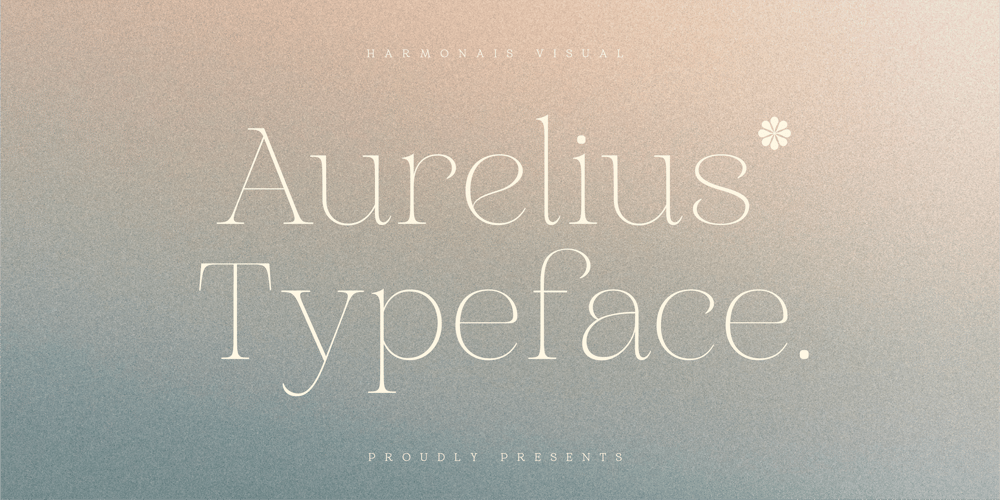
HV Aurelius Font Family was designed by Max Duy T. and published by Harmonais Visual. HV Aurelius contains 2 styles and family package options. Aurelius – a sophisticated, charming serif with a fashionable touch. Specially designed for luxury, elegant, feminine projects, Aurelius is perfectly suitable for creating modern, chic design such as logos, packaging, editorial, and more.